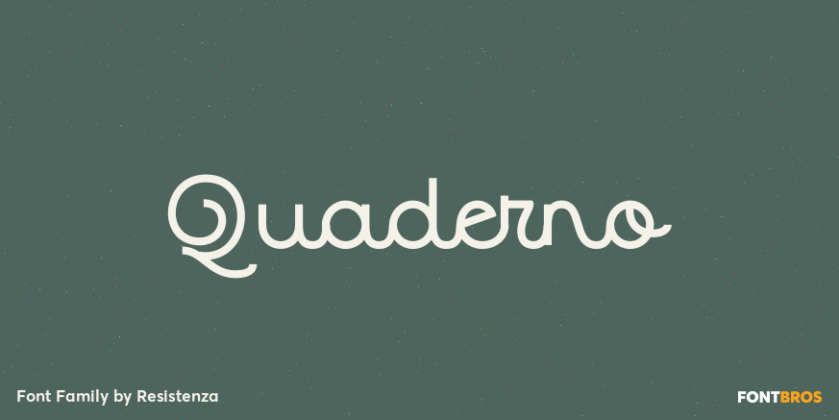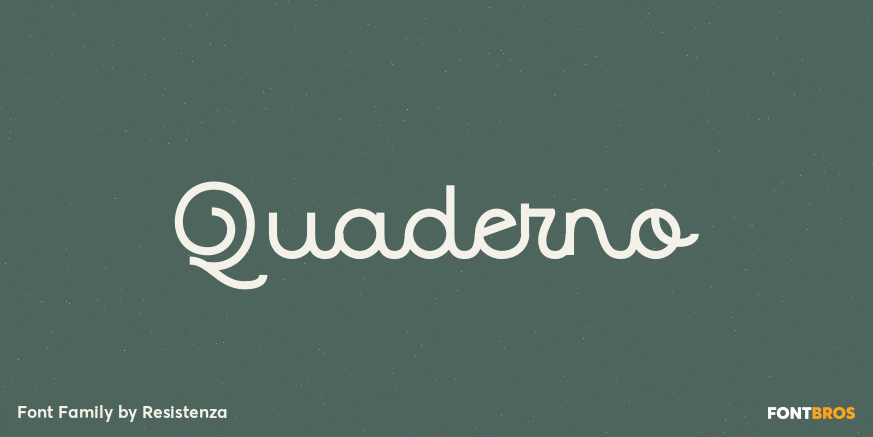
Quaderno
About Quaderno
Quaderno is a light and monolinear upright script, accompanied by the heavier weights. This connected script combining elements of the traditional Italian script Bella Scrittura and French script. Is suited for middle length texts and headlines, Quaderno…